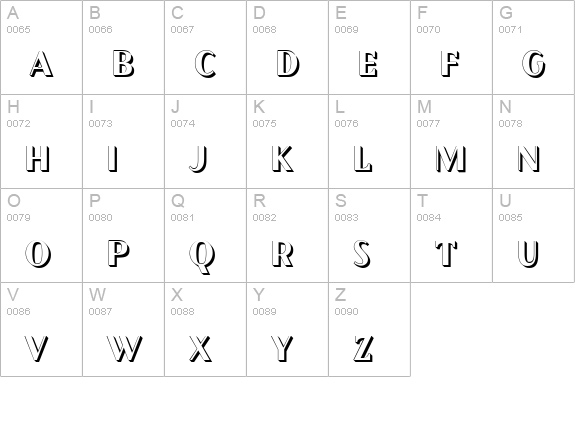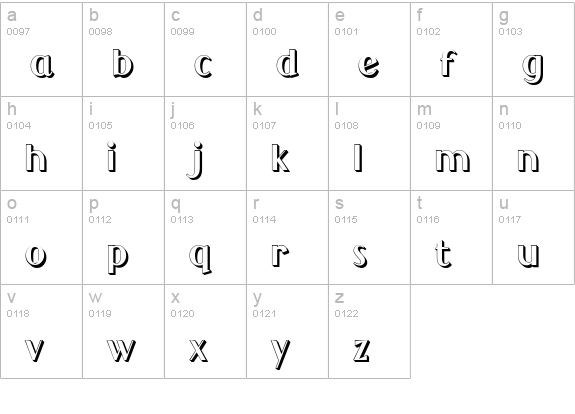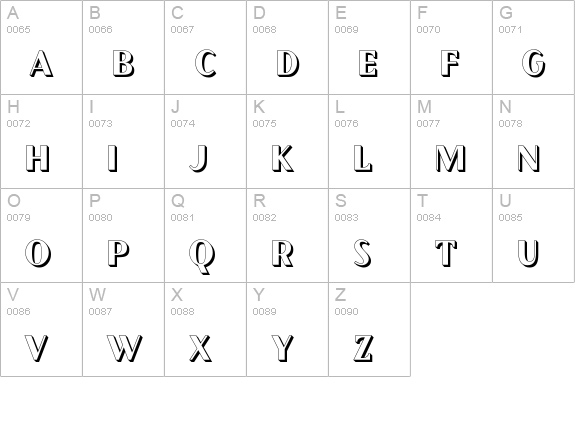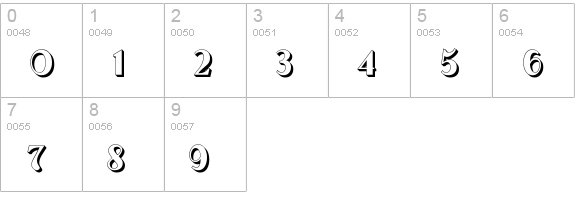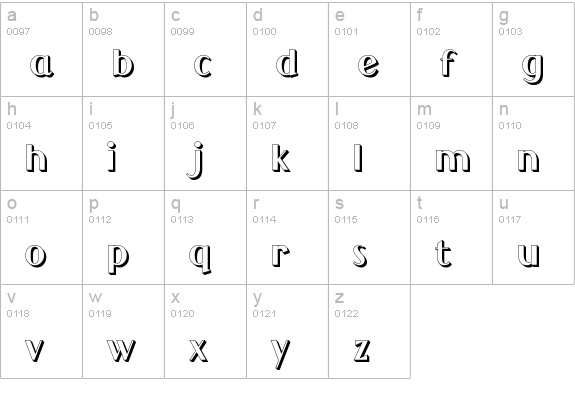
GrandecortShadow Font Details
GrandecortShadow font is a stunning display typeface that exudes elegance and sophistication. Its intricate details and ornate design make it a perfect choice for projects that require a touch of grandeur. The unique shadow effect adds depth and dimension to the text, making it stand out beautifully. What sets GrandecortShadow font apart is not just its exquisite appearance, but also the fact that it is available for free download at FontsMarket.com. This means that you can easily access this premium-quality font without any cost, making it a valuable addition to your font collection. Whether you are working on invitations, posters, branding materials, or any other creative project, GrandecortShadow font will elevate your design and leave a lasting impression. Download it for free today and add a touch of luxury to your work.